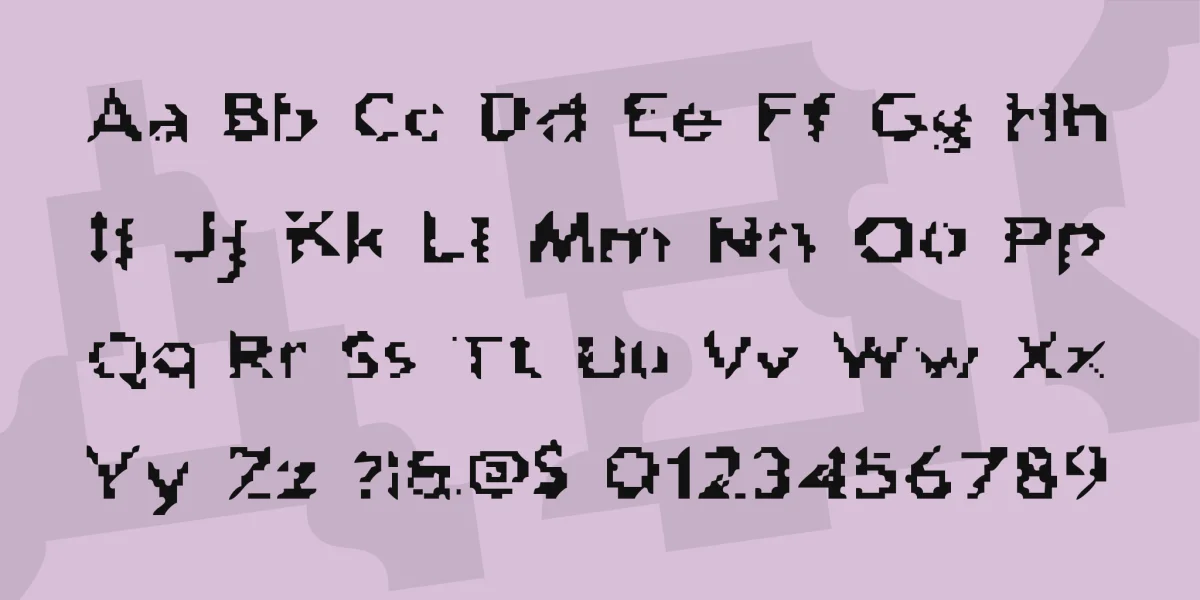
While slightly illegible, this futuristic font is usable. The name came from my good friend Jessie and I thought she used the phrase as a modification of a Vancouver band's name (Damn the Diva). But nope! It actually came from the movie Empire Records.